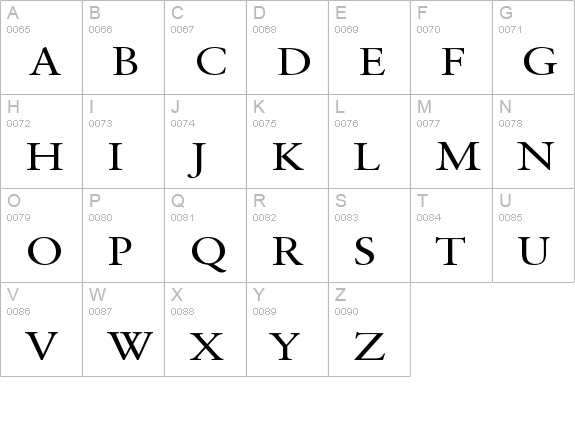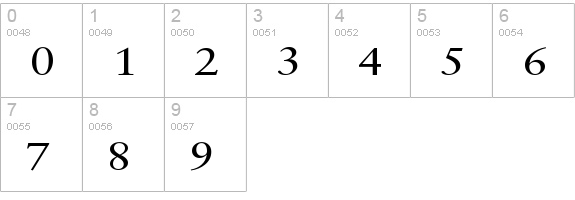
Garrick Wide Normal Font Details
Garrick Wide Normal is the standard, neutral, extended-width variant in the Garrick typeface family \xE2\x80\x94 well suited to general body text, paragraphs, and standard typographic work.
Garrick Wide Normal font is a versatile typeface that exudes modernity and sophistication. Its clean lines and wide letterforms make it perfect for a variety of design projects, from branding to editorial design. The font's balanced proportions and distinctive style give any text a polished and professional look. What sets Garrick Wide Normal font apart is that it is available for free download at FontsMarket.com. This means that you can easily access this high-quality font without any cost, making it a great choice for designers on a budget. Whether you're working on a website, a poster, or a logo, Garrick Wide Normal font is sure to make your text stand out with its contemporary and elegant appearance. Don't miss out on the opportunity to enhance your designs with Garrick Wide Normal font. Download it for free today and elevate your typography game!